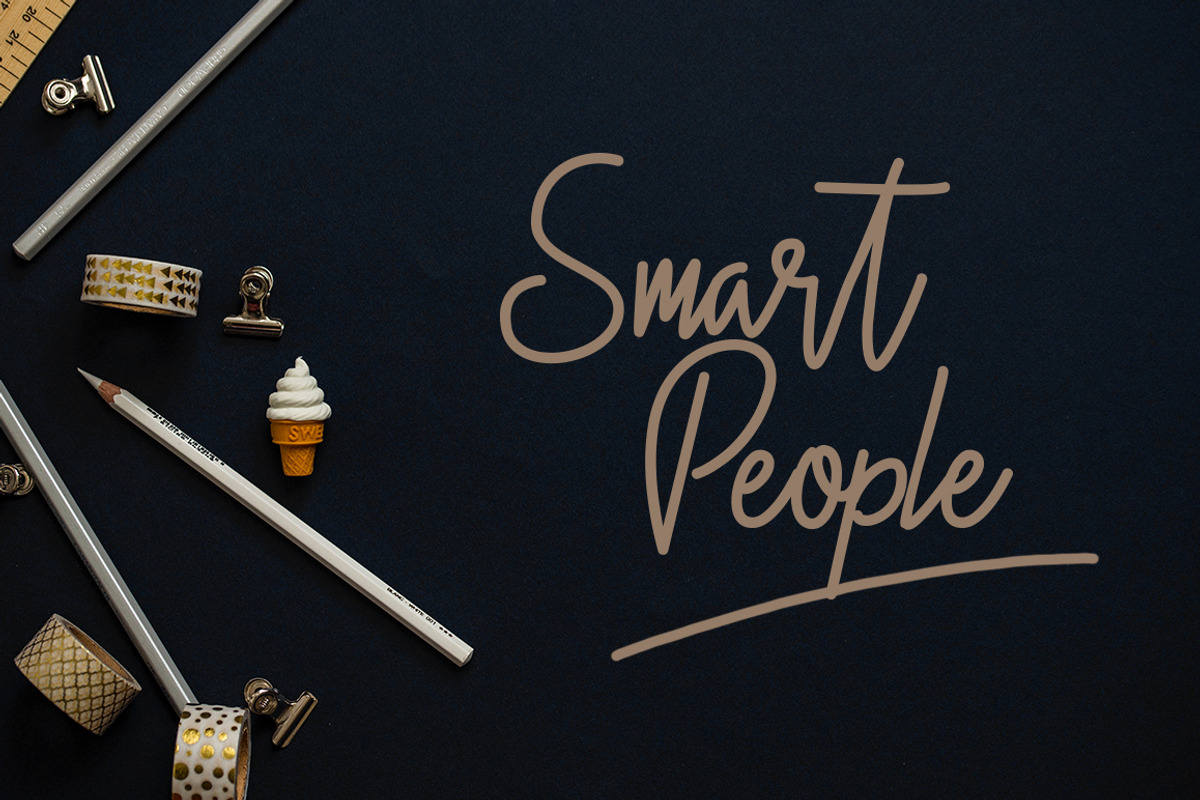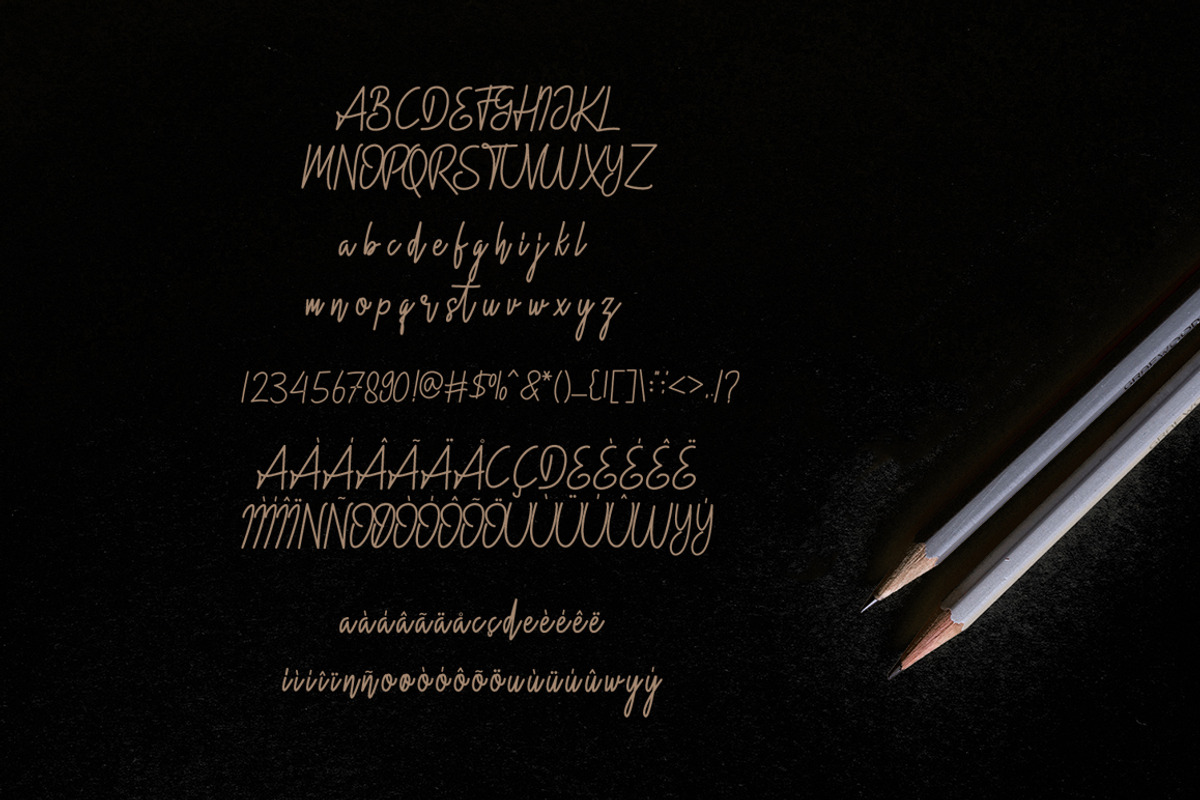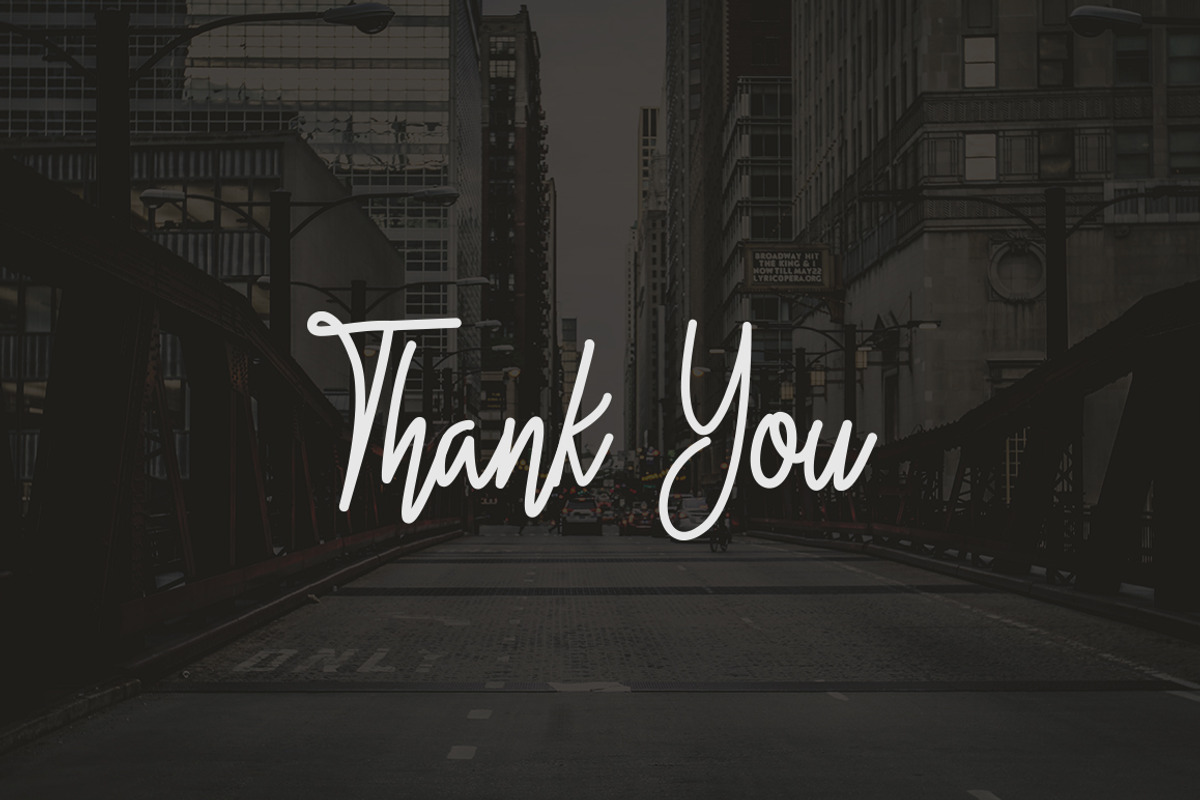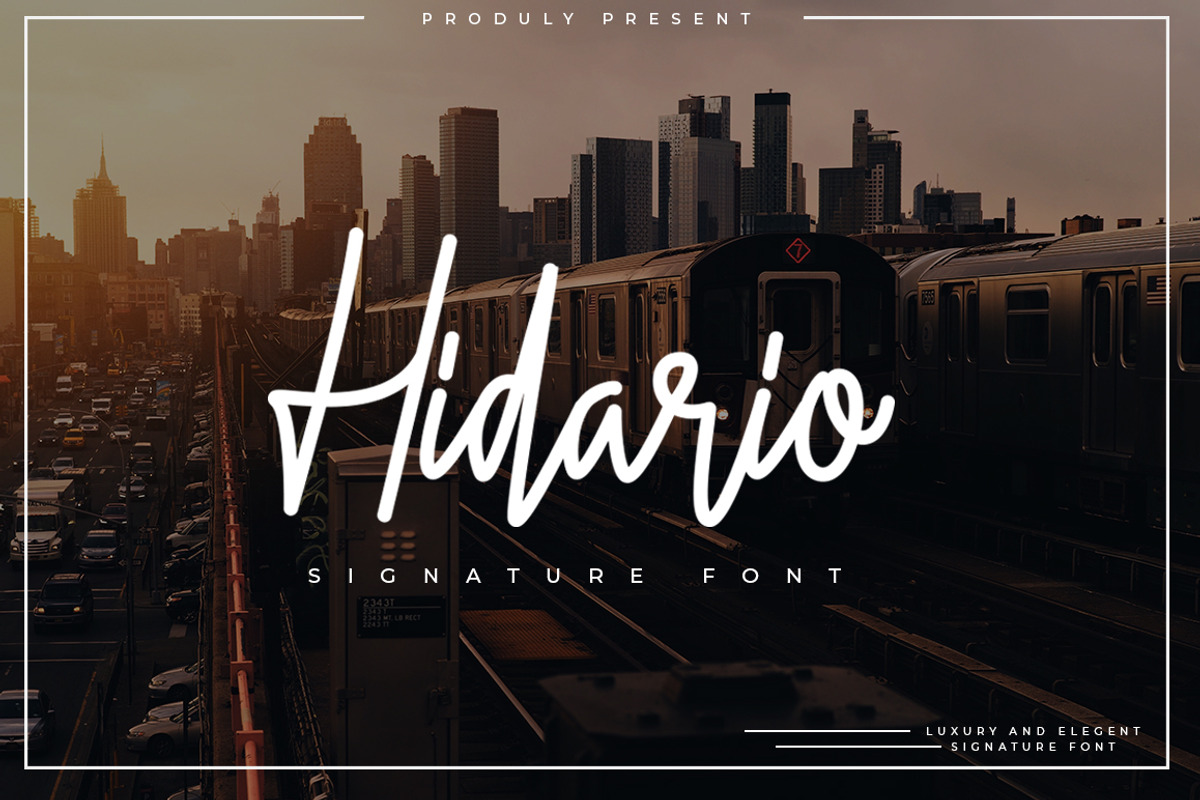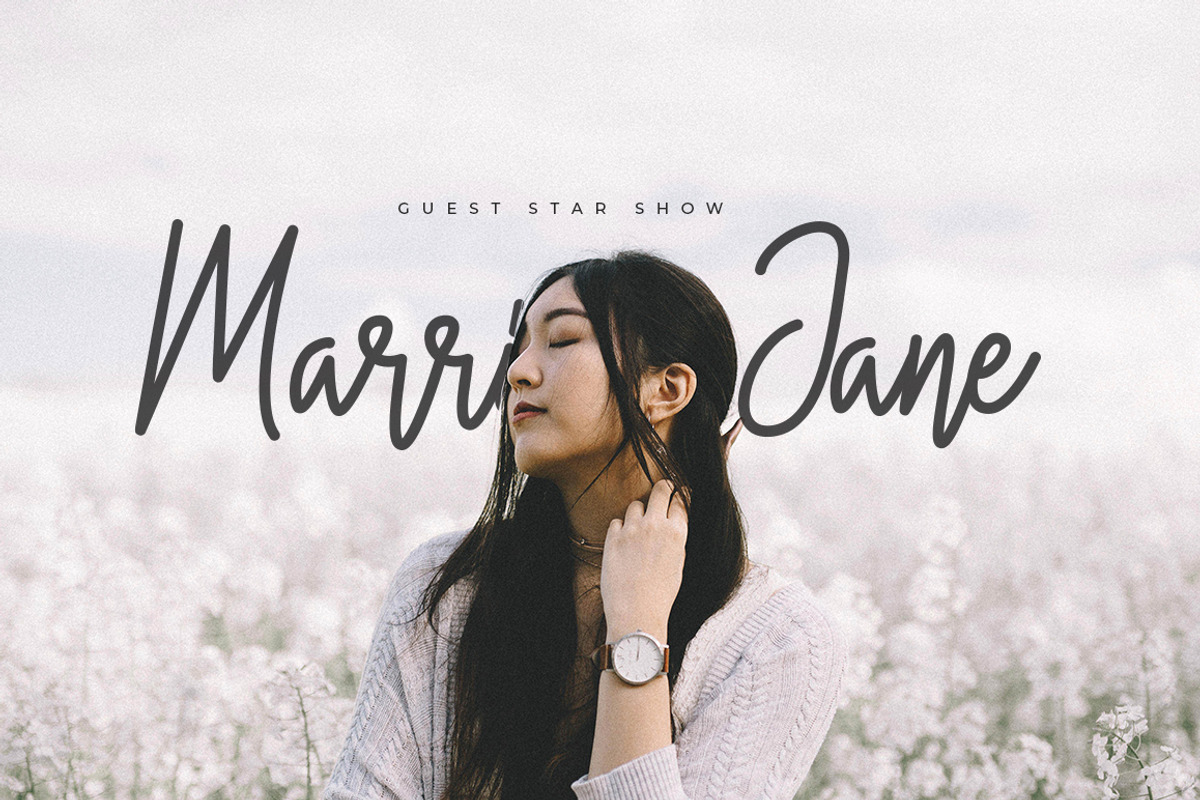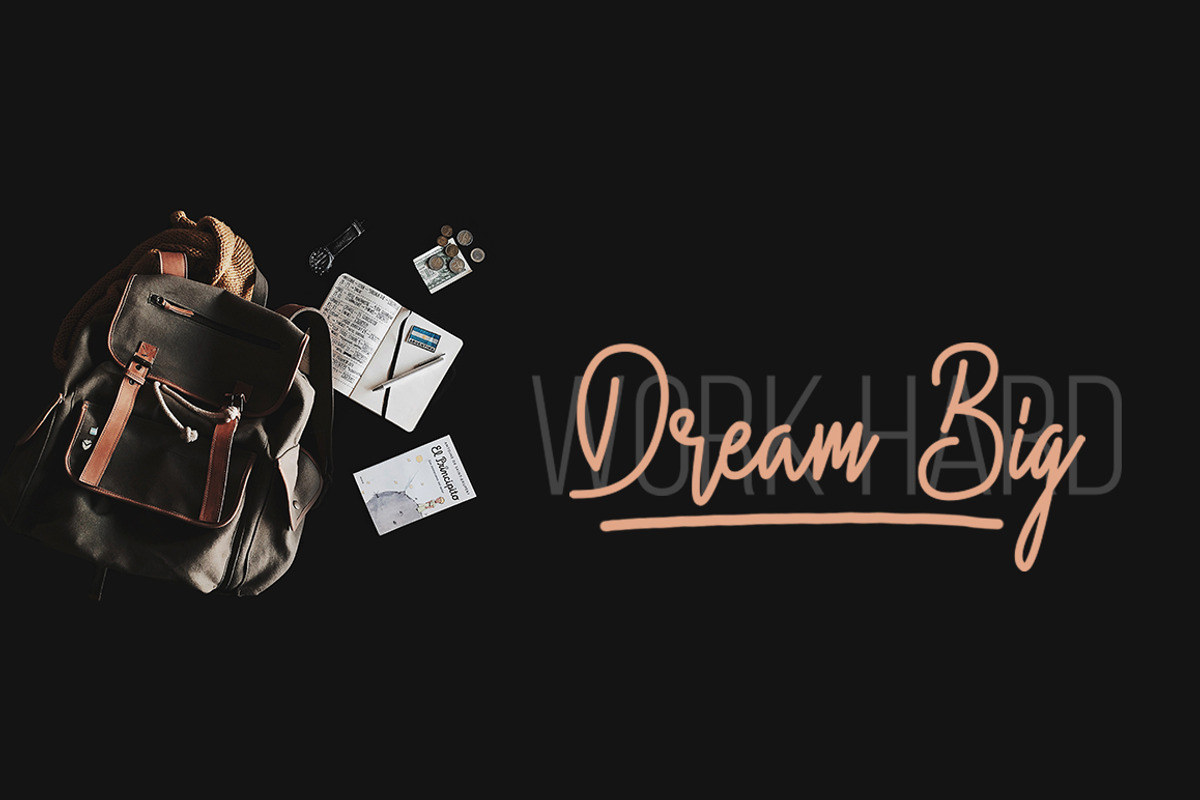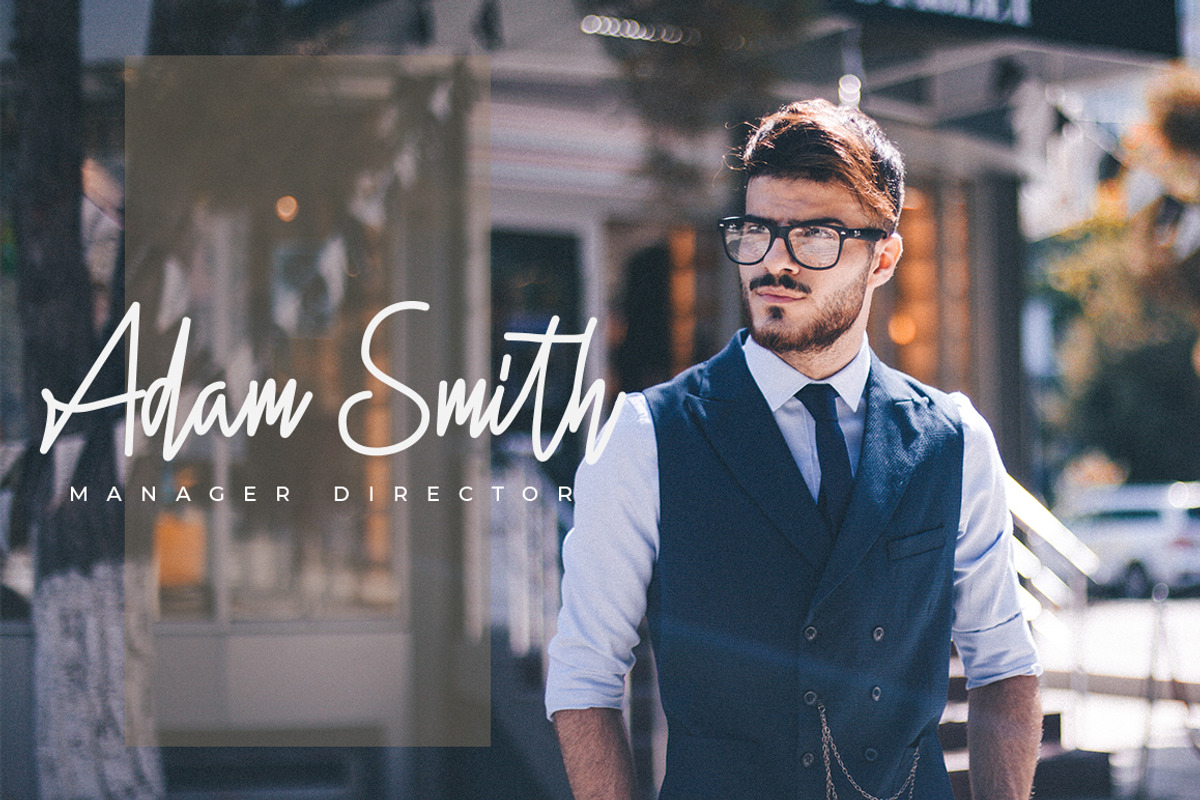
Hidario Signature Font
Introducing of our new product the name is Hidario Signature Font. Inspired by signature and stylish handwriting, perfect for many different project such as logos & branding, invitation, stationery, wedding designs, social media posts, advertisements, product packaging, product designs, label, photography, watermark
Multilingual Support AÀÁÂÃÄÅCÇDÐEÈÉÊËIÌÍÎÏNÑOØÒÓÔÕÖUÙÜÚÛß
Why Hidario Signature Font is worth a look
Hidario Signature Font by Indotitas fits naturally into Branding, posters, packaging, typography.